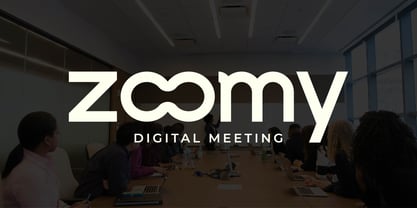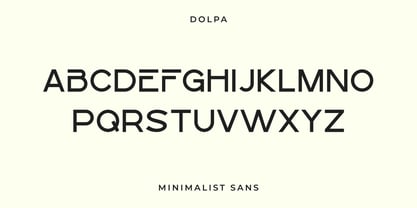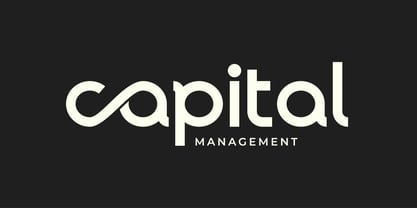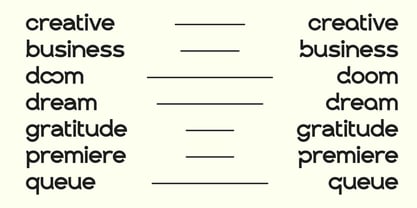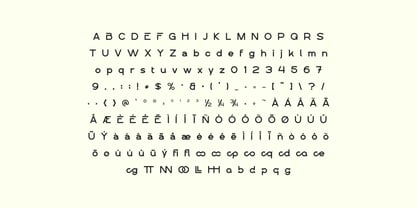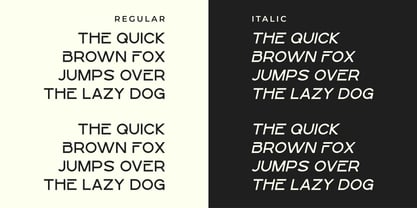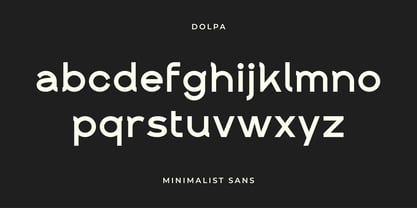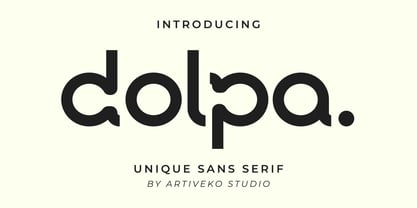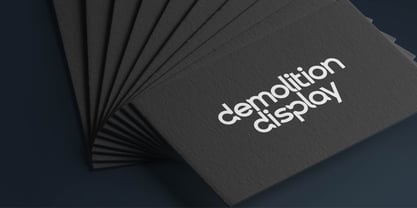
Dolpa
by Artiveko
The Dolpa Font Family was designed by Iwan Alwan and published by Artiveko. Dolpa contains 2 styles.
Dolpa is a modern elegant sans serif font designed to bring sophistication and clarity into every project. With its clean structure, smooth curves, and refined proportions, Dolpa offers a timeless look that fits both contemporary and classic branding.
From luxury logos to magazine layouts, fashion posters to social media graphics—Dolpa adapts beautifully across various platforms. Each letterform is crafted with balance and simplicity, while still offering character and warmth.